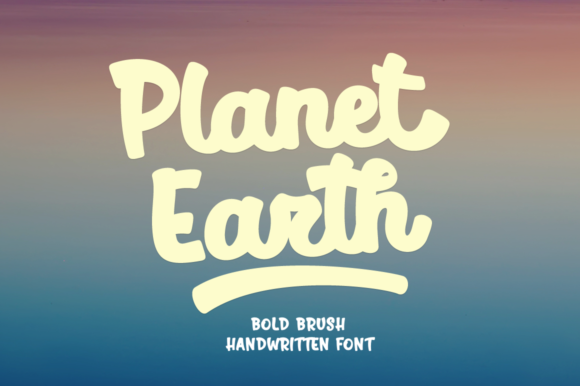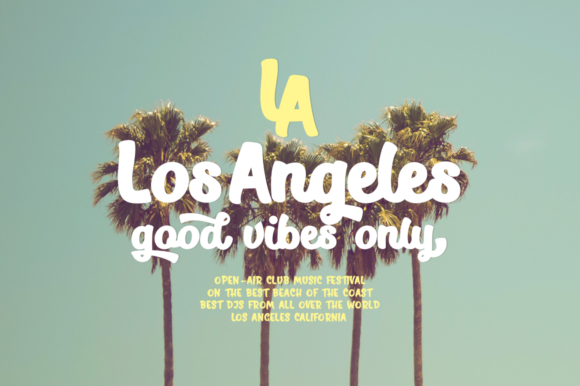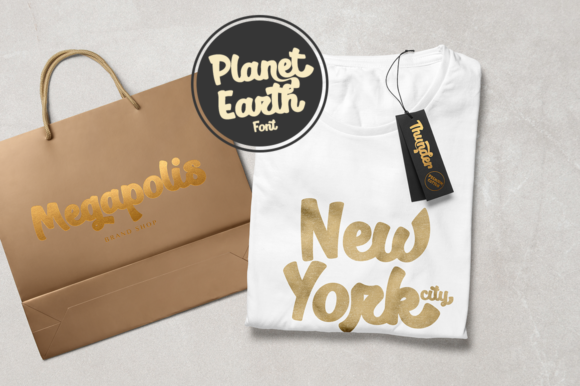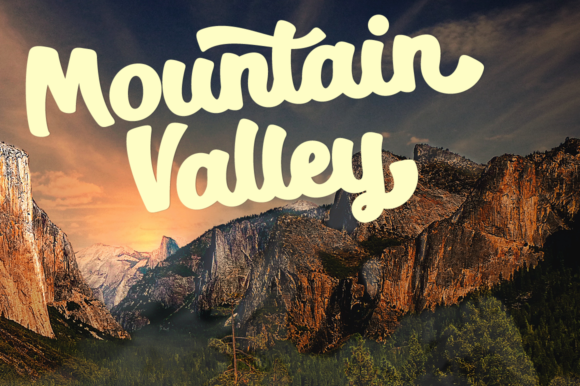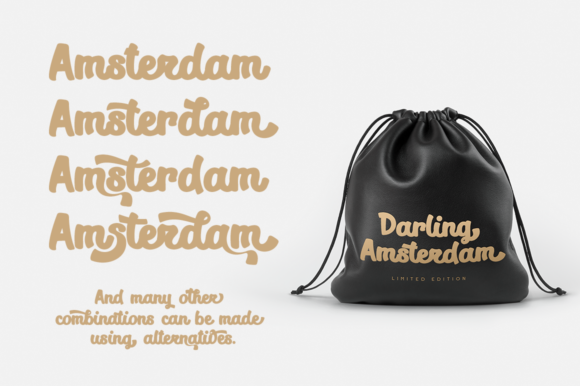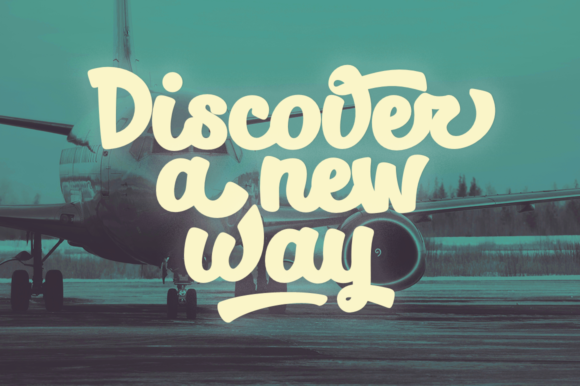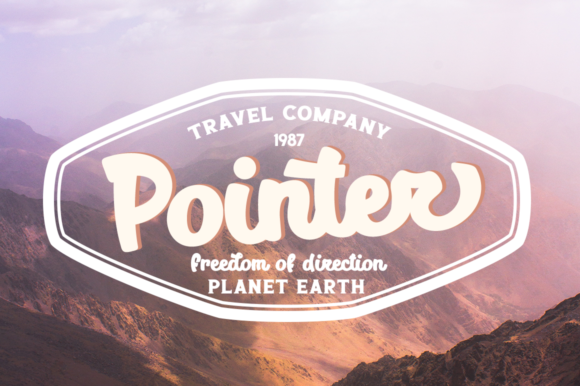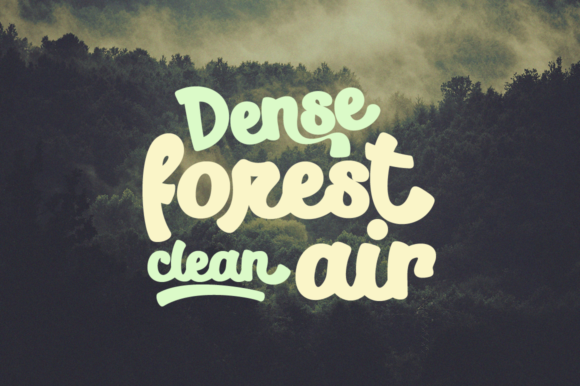
Planet Earth Font
About Planet Earth Font
The Planet Earth is a bold brush font. It handwritten style will give your designs a natural feel.
It’s perfect for wedding invitations, blogs, book covers, small businesses, marketing, magazines, and much more!